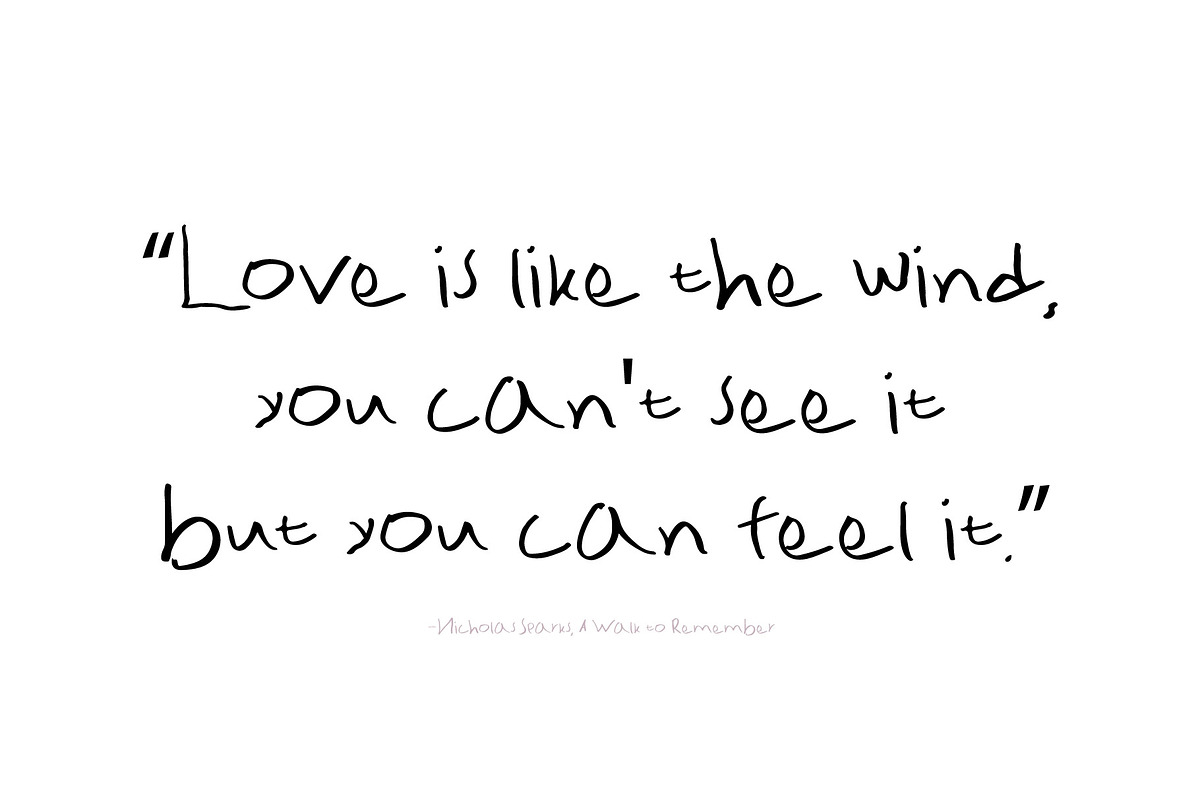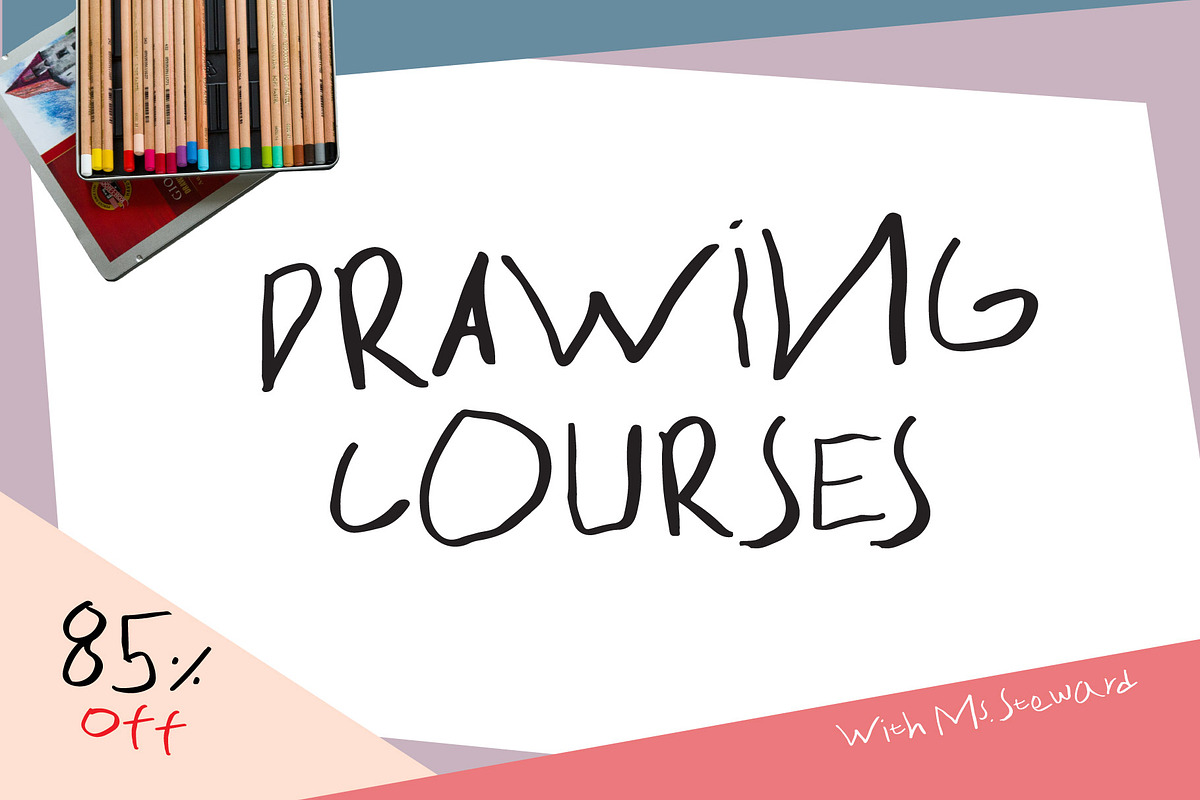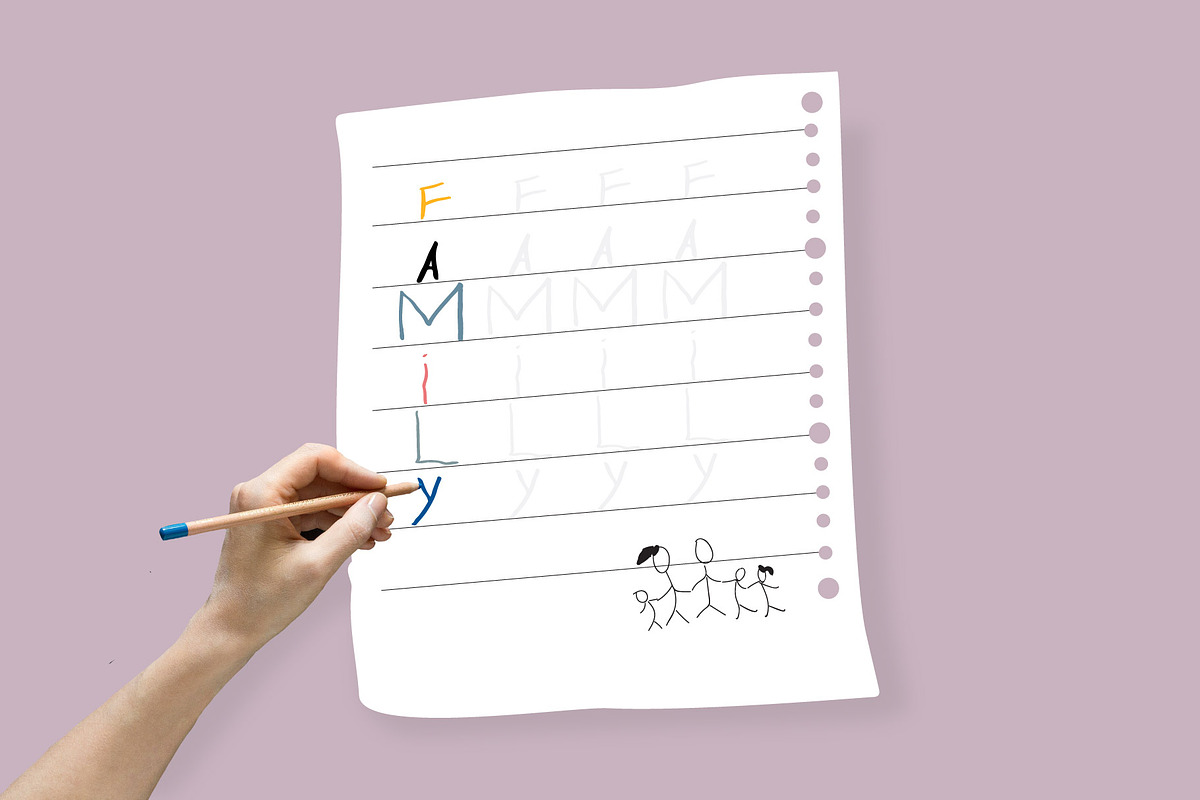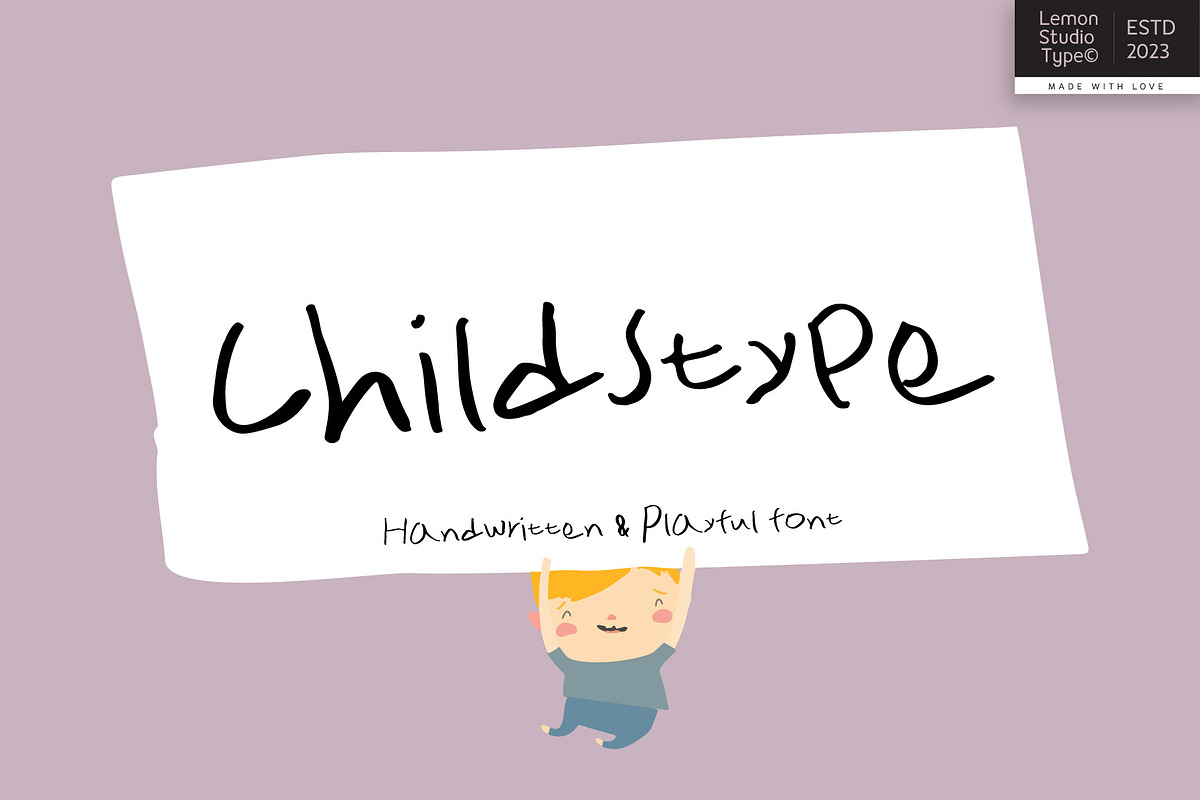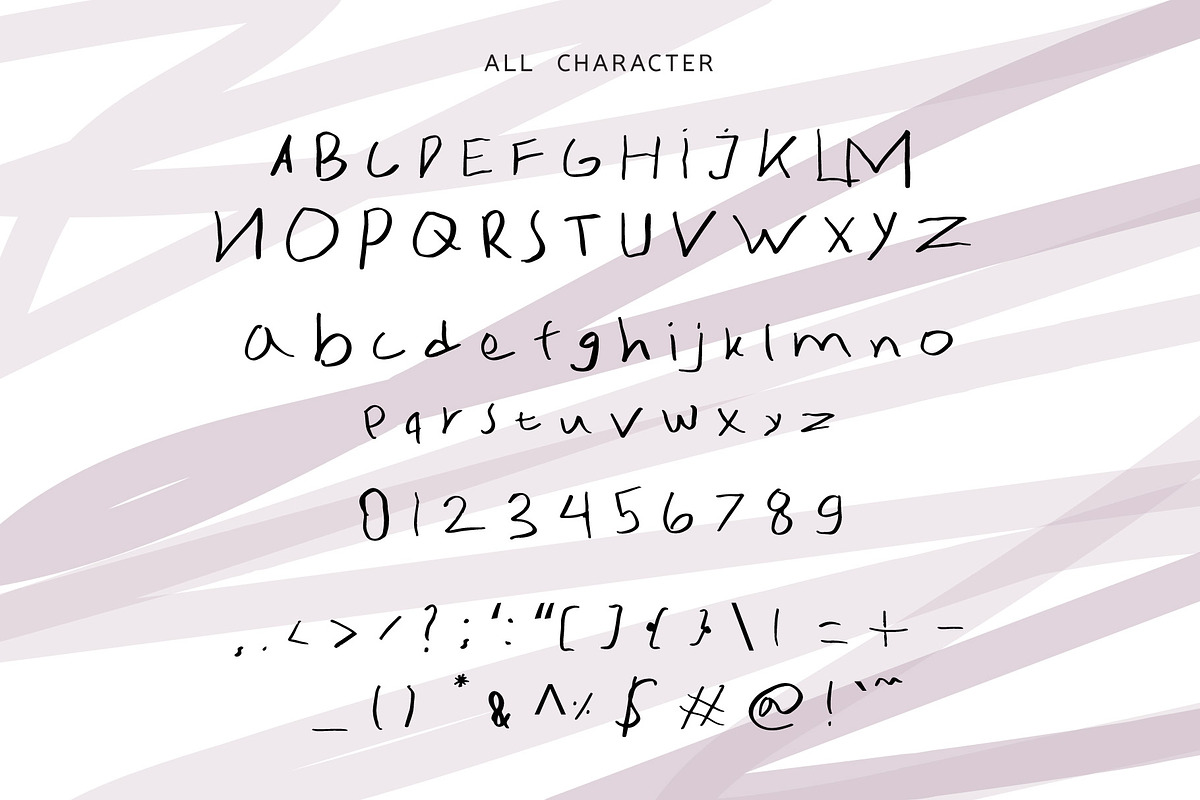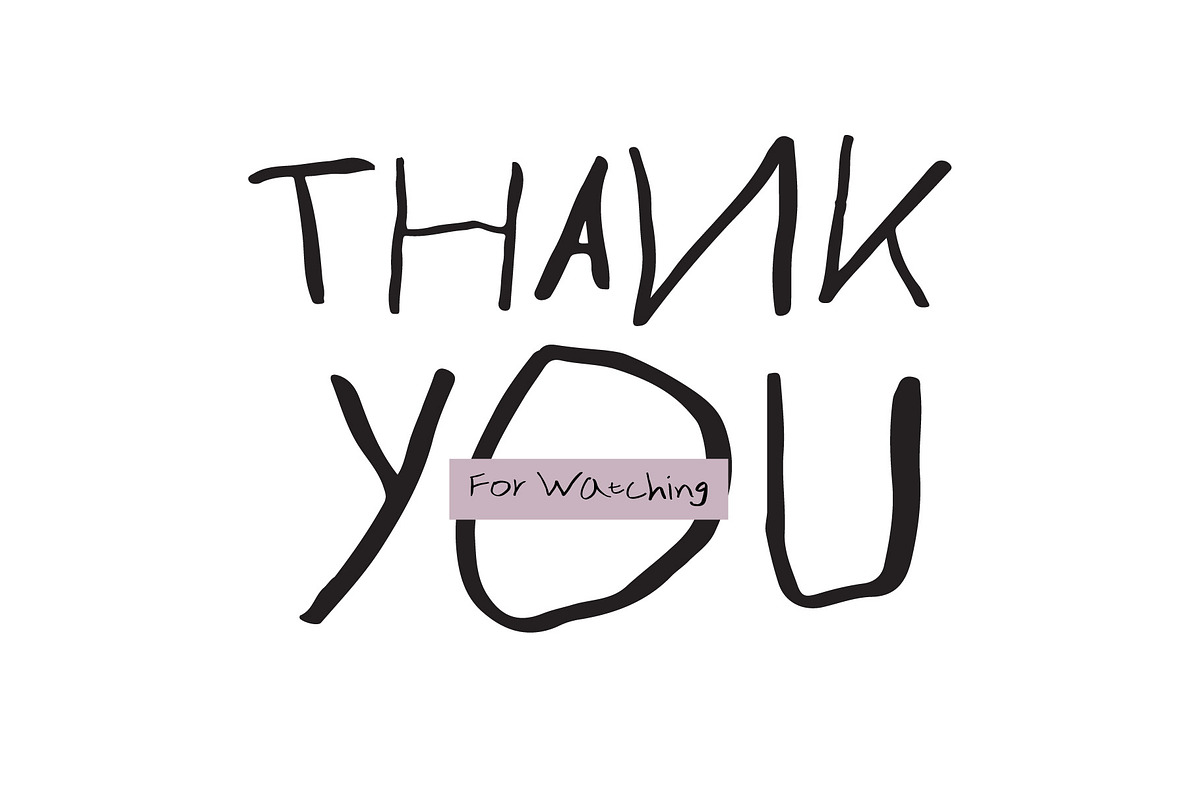
Childstype - Cute Handwritten
Childstype is a handwritten font inspired by the freehand style. This font looks fresher and more attractive because of it's natural hand strokes. It's perfect for use in a variety of your unique design needs.